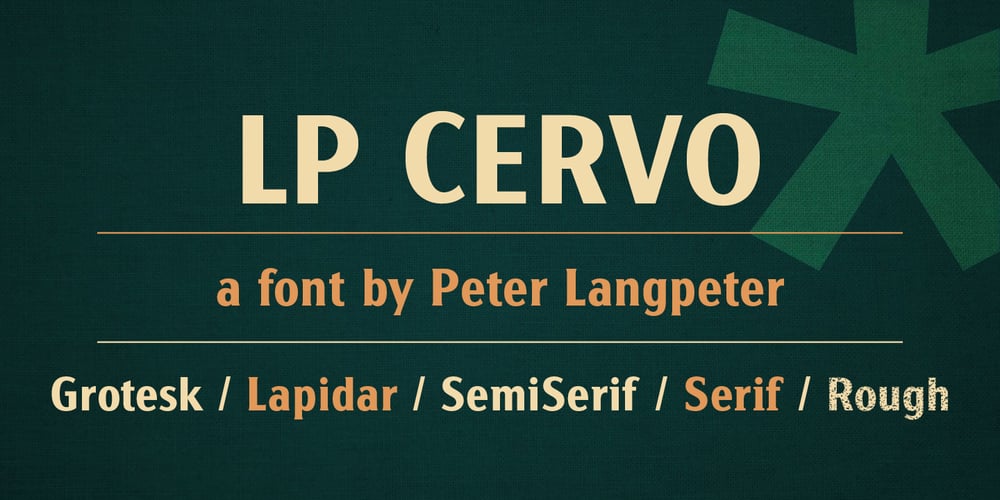
LP Cervo Font Family was designed by Peter Langpeter and published by URW Type Foundry. LP Cervo contains 5 styles and family package options. LP Cervo is a typeface designed by German type designer Peter Langpeter. LP has been running his own design studio since 1995, working as a typeface and logo designer, as a calligrapher, cartographer and illustrator. During this time LP created a large number of excellent new typeface designs. With its styles Grotesk, Lapidar, Semiserif and Serif the LP Cervo is well suited for various design possibilities